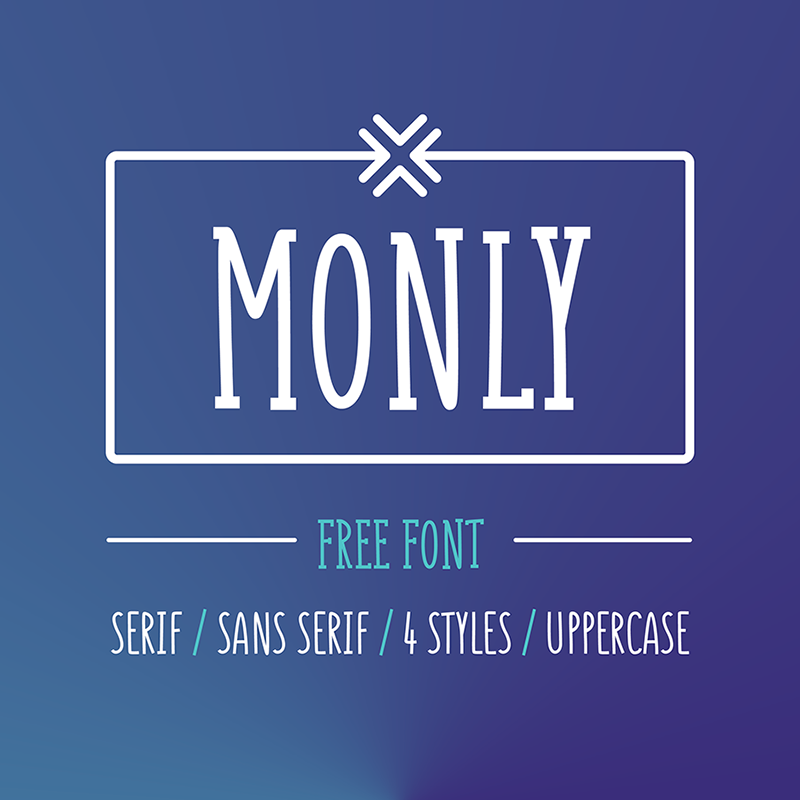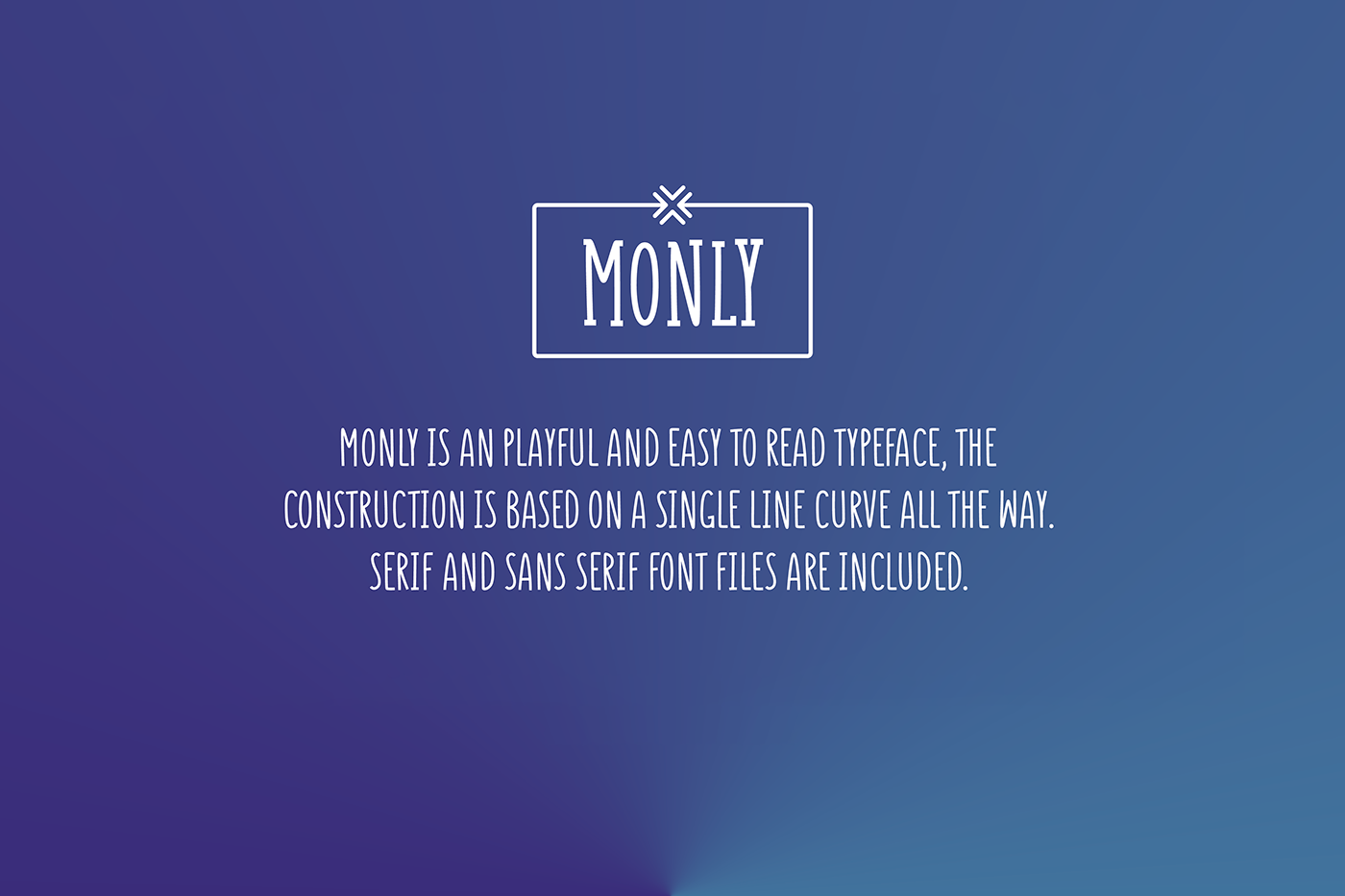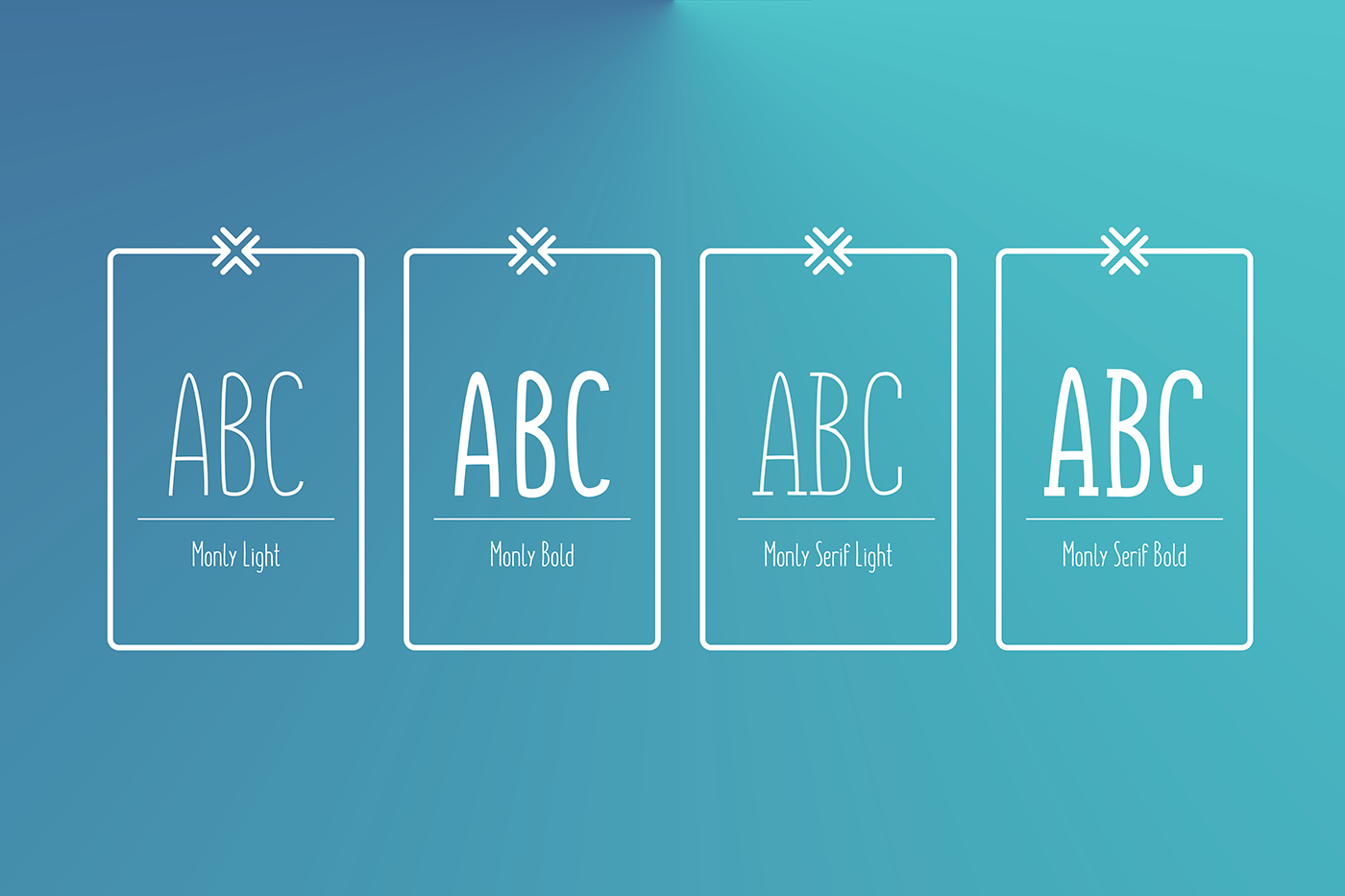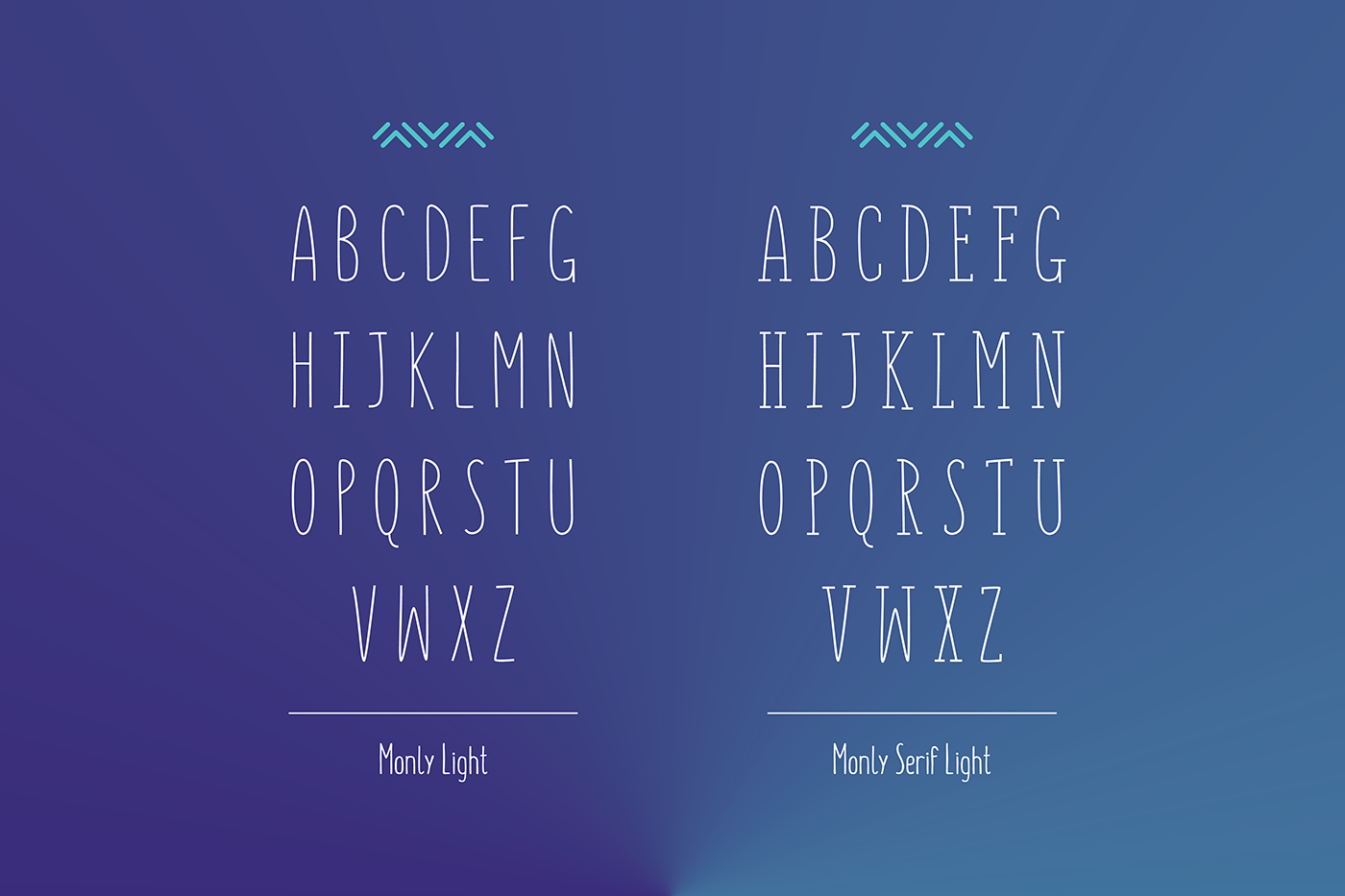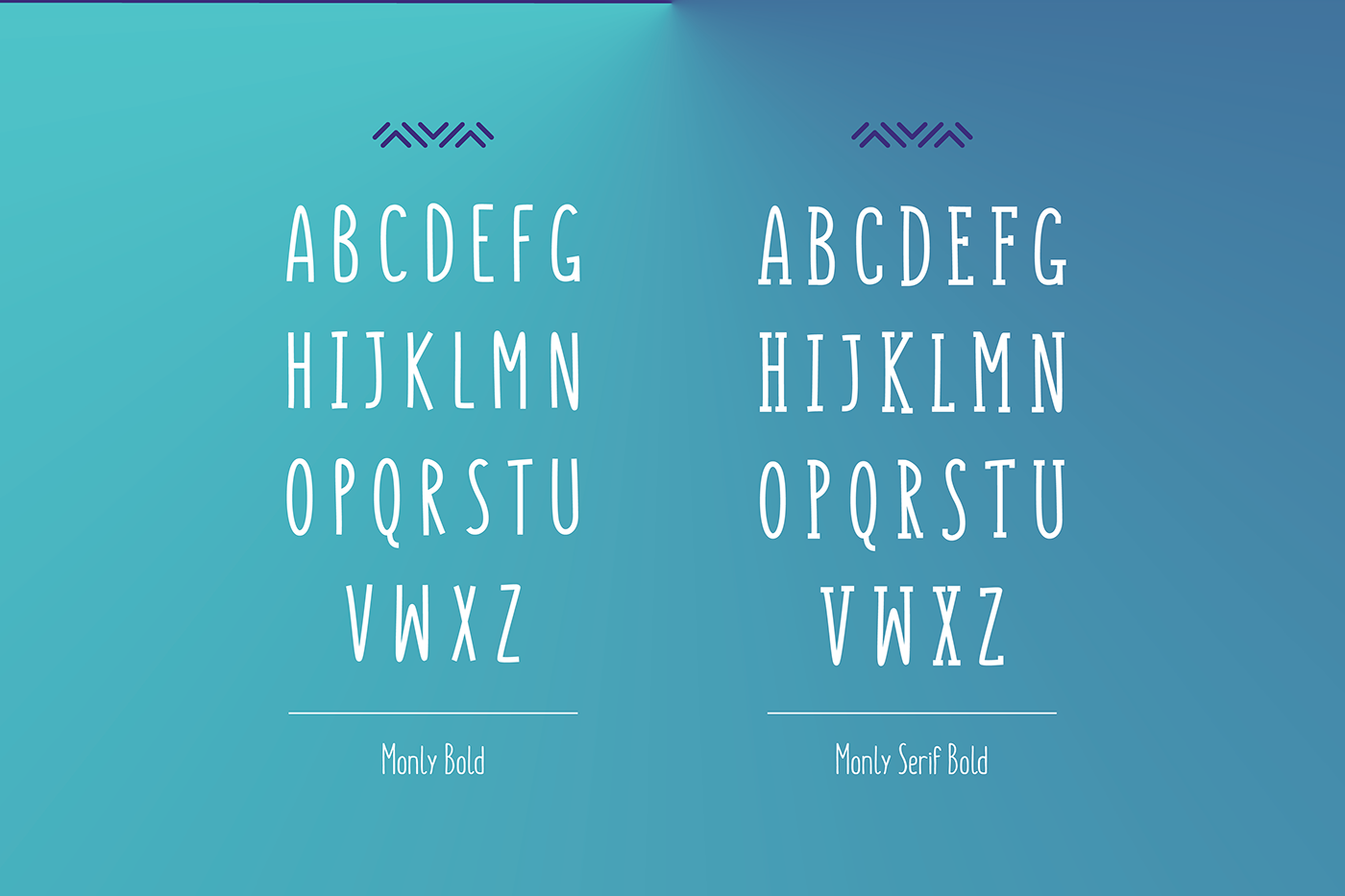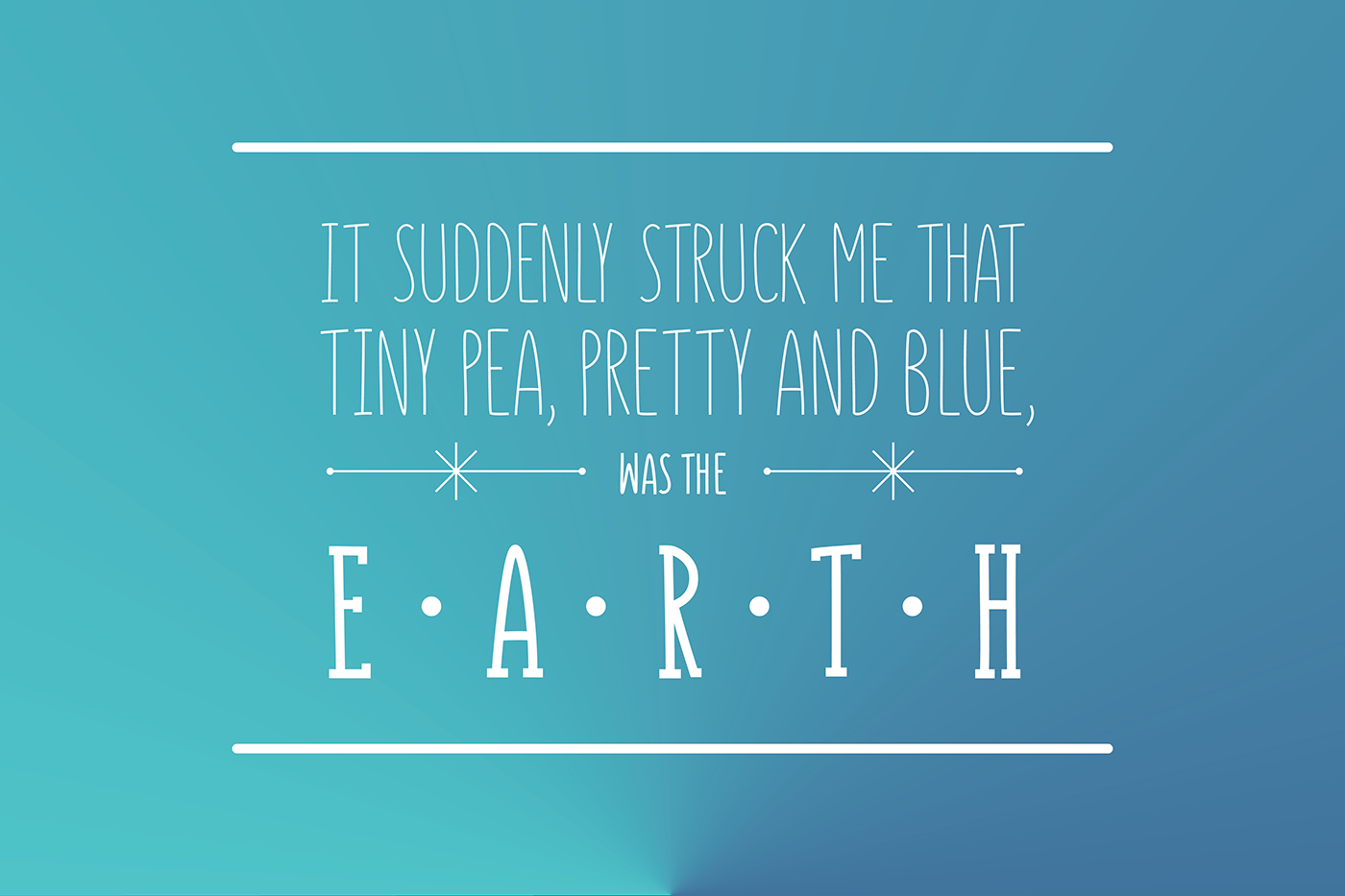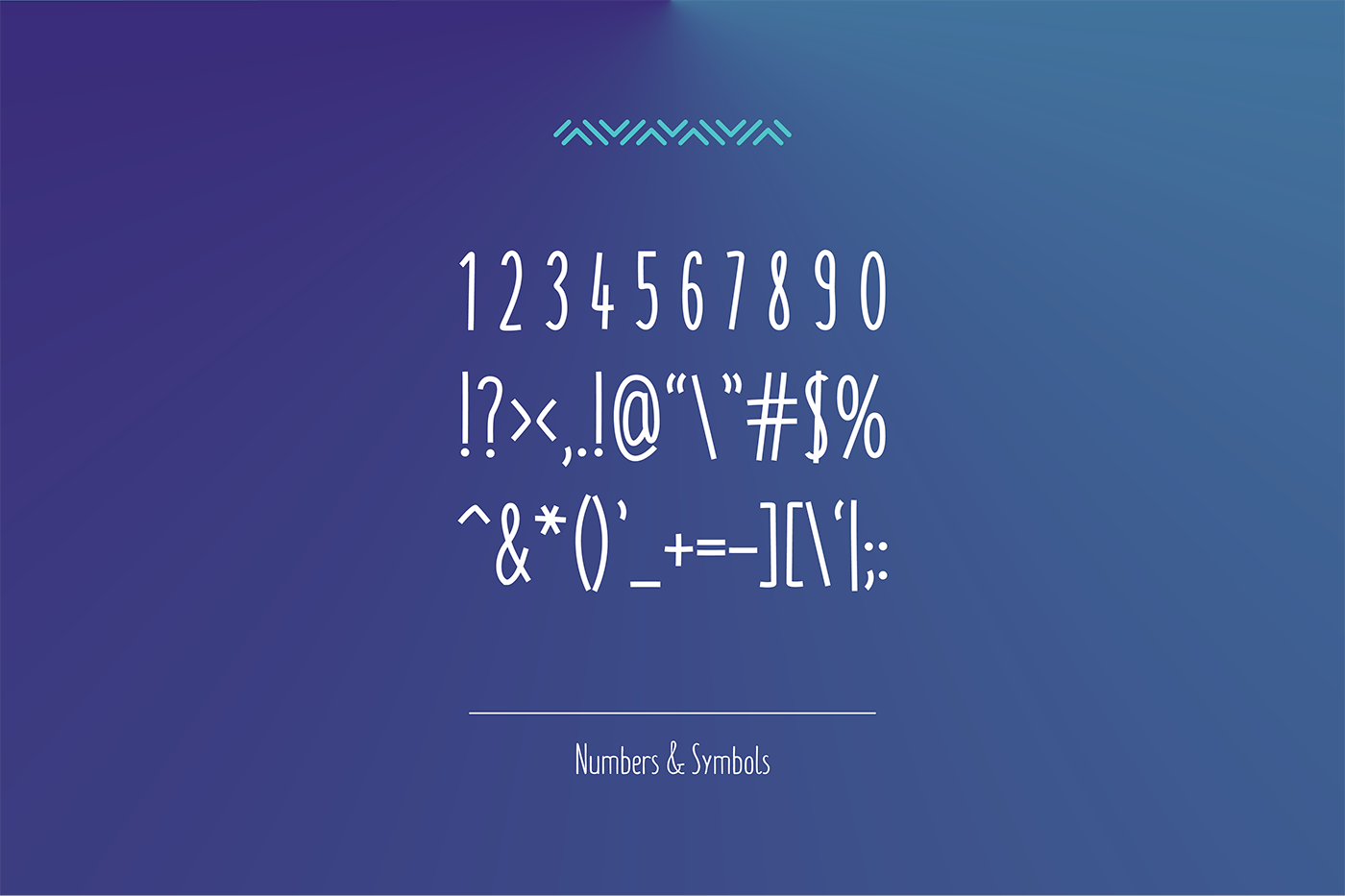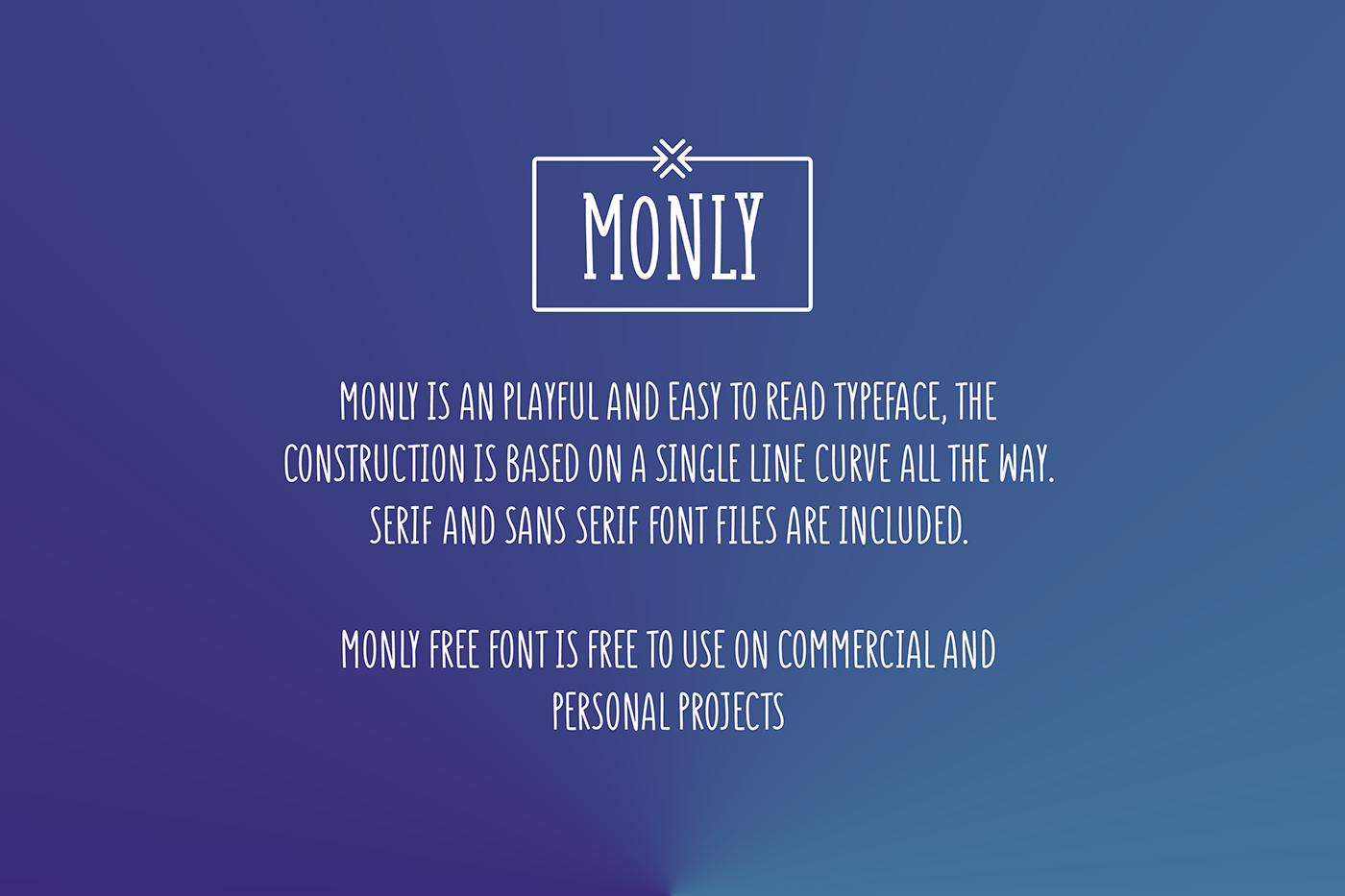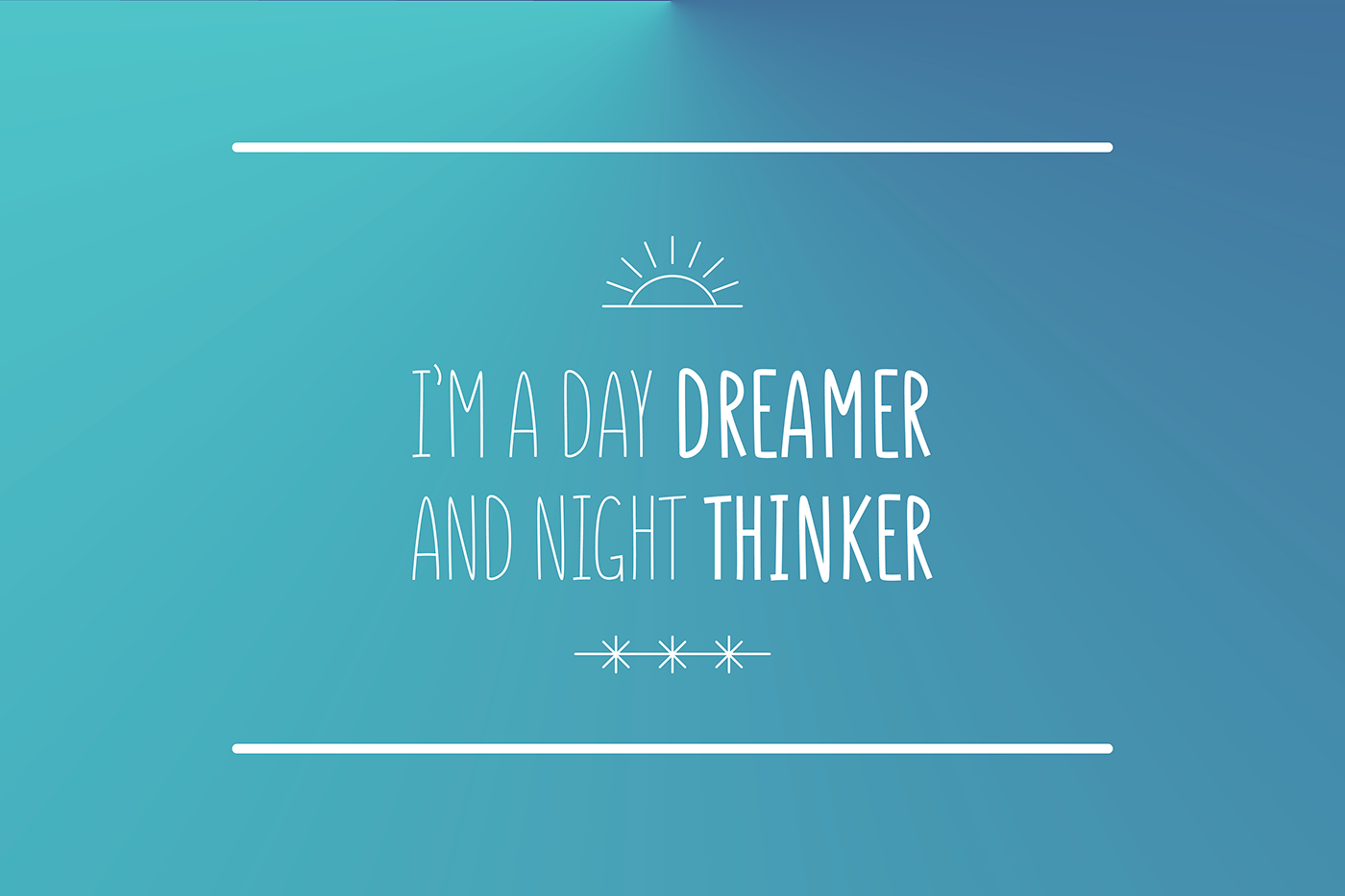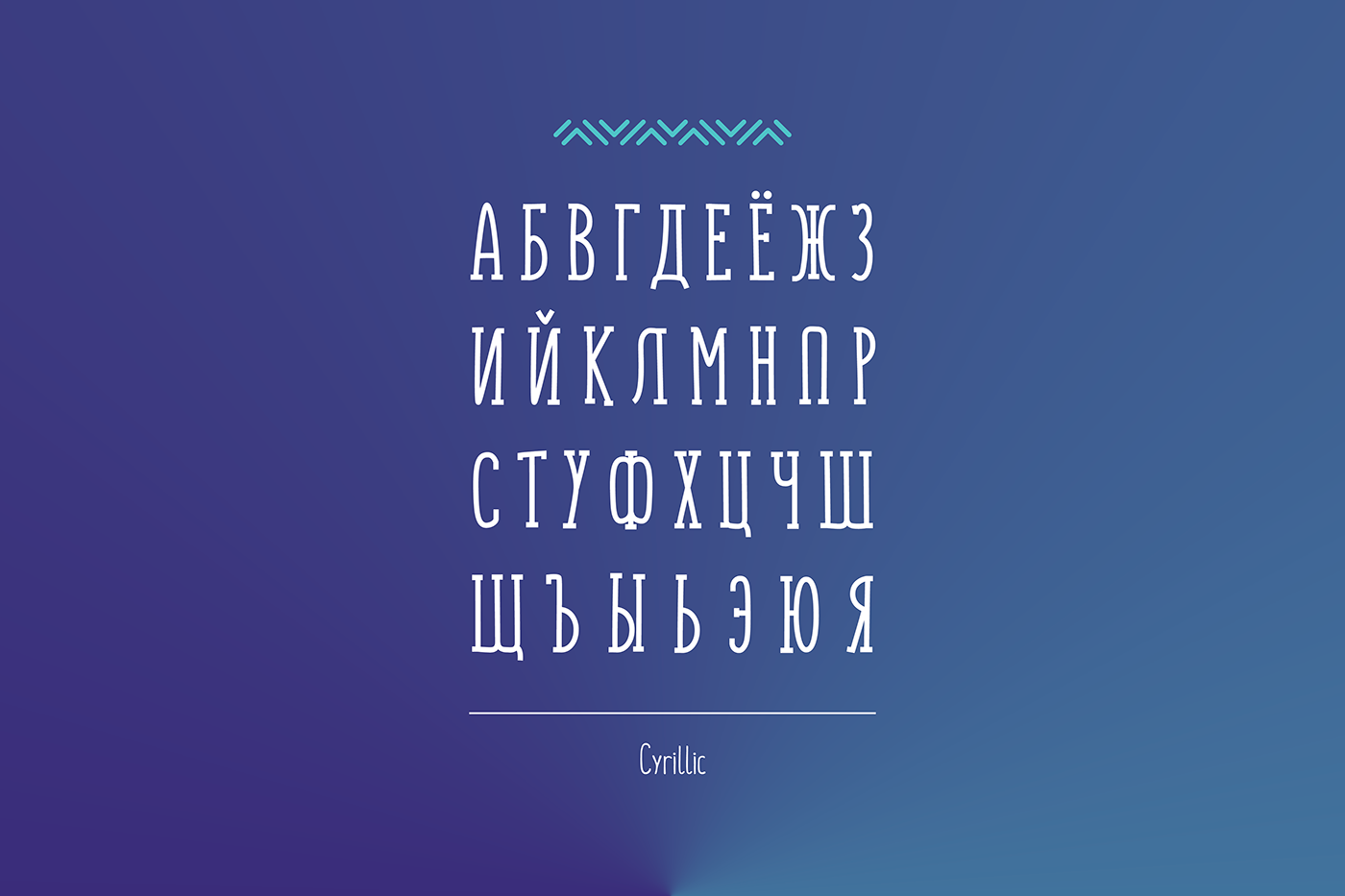
Monly is a playful and easy to read typeface designed by Gatis Vilaks from Riga, Latvia. Monly’s construction is based on a single line curve all the way. Serif and Sans Serif font files are included. Monly Font is free to use on both commercial and personal projects.